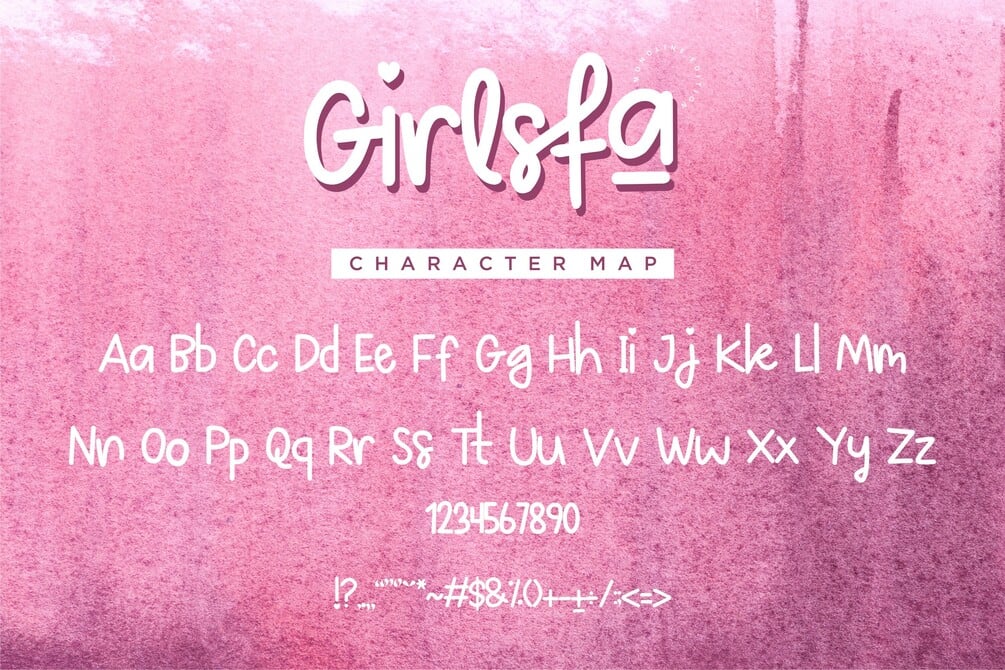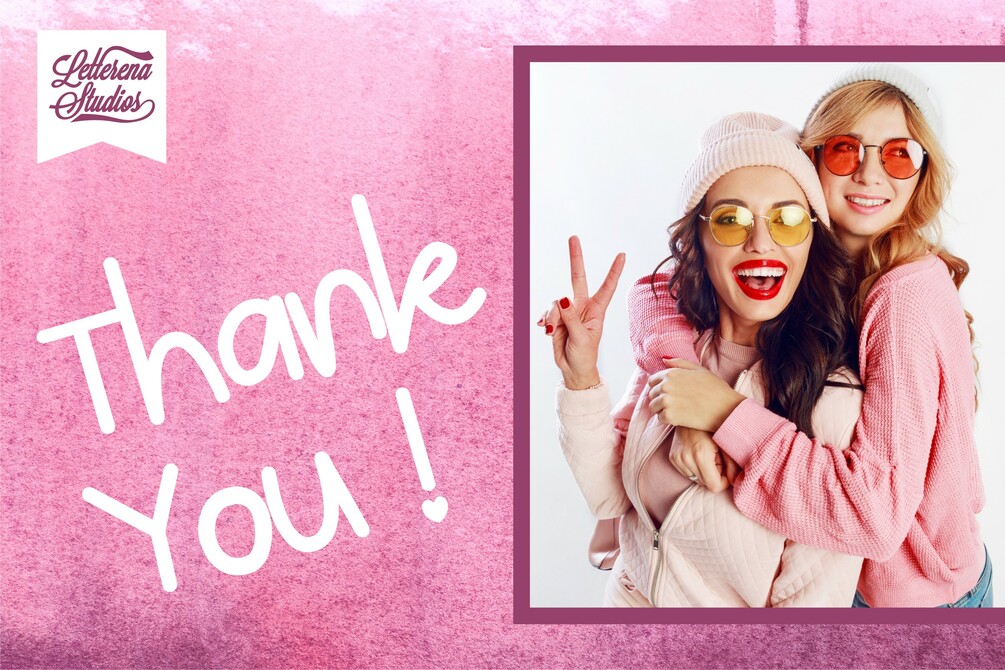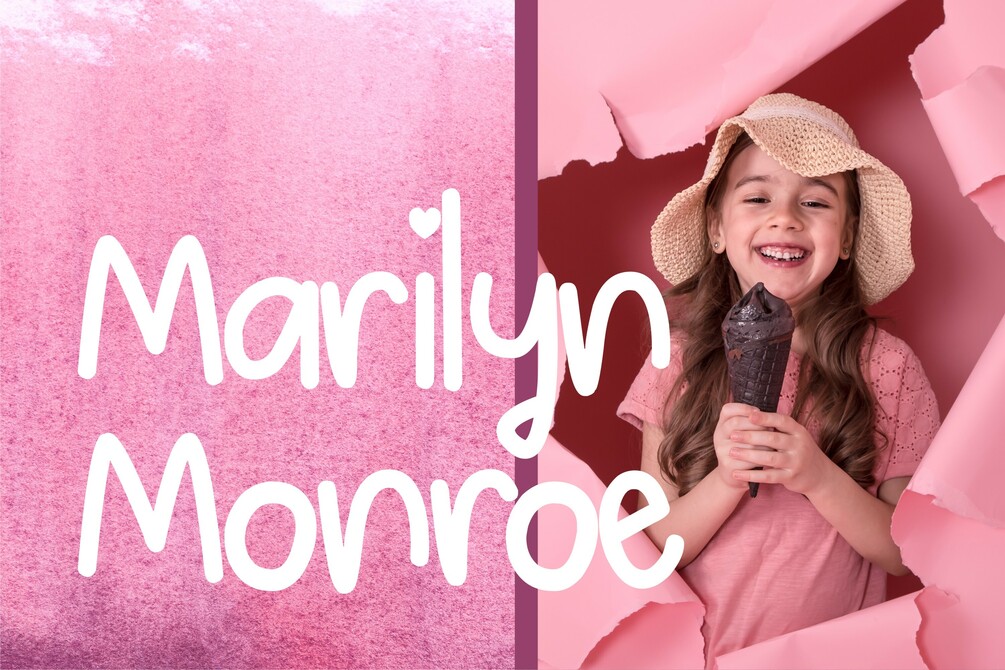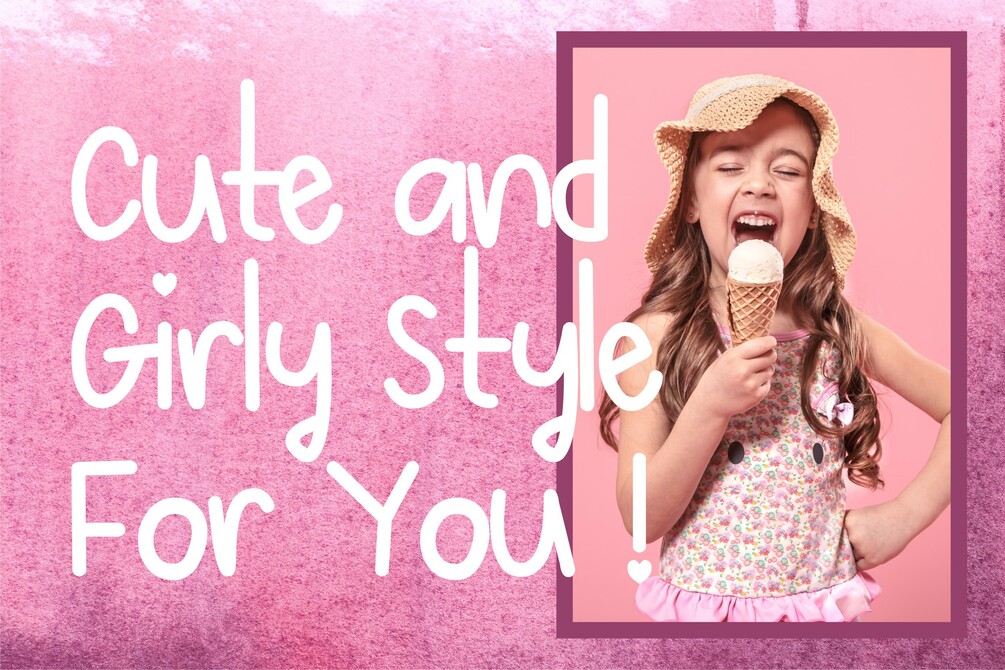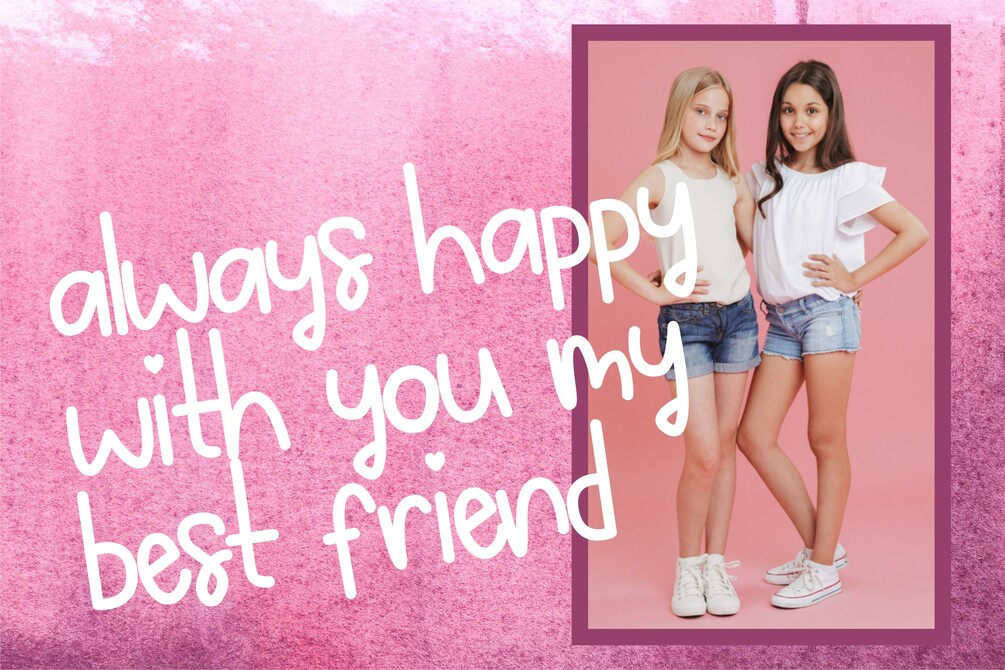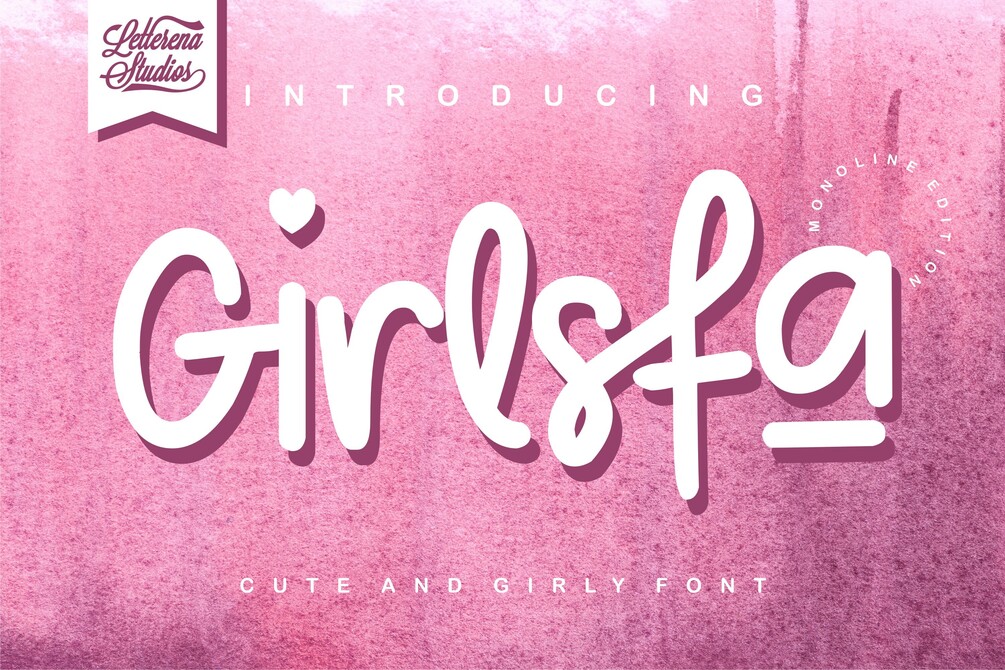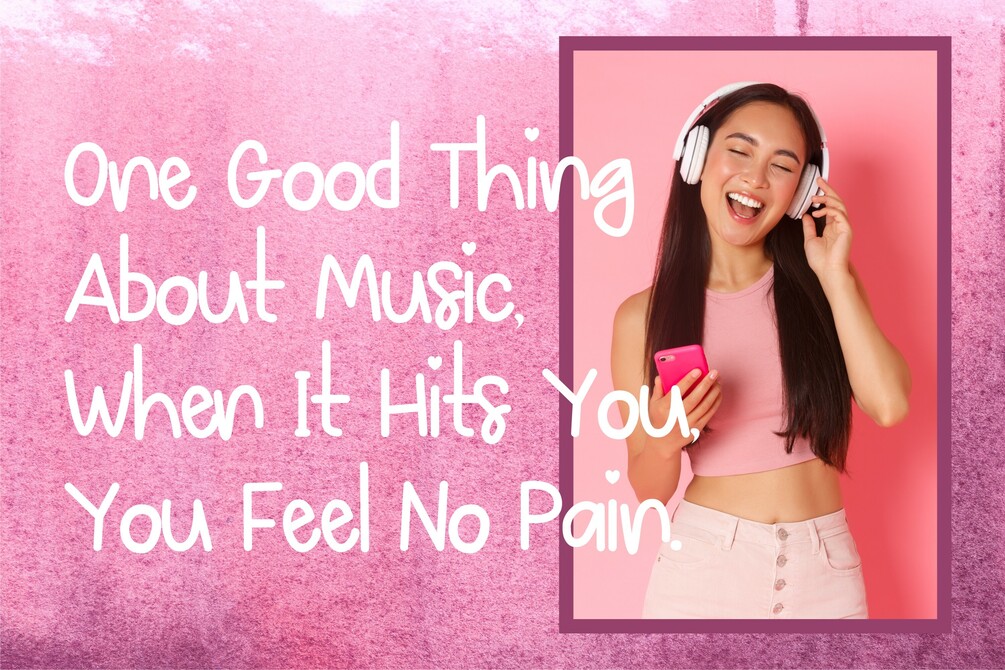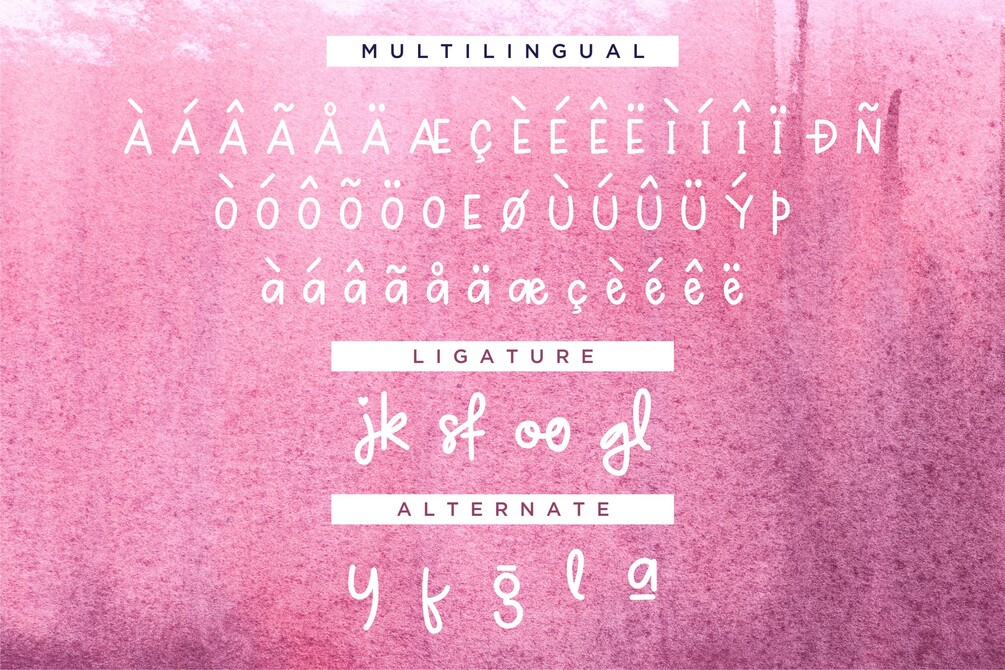
Girlsfa - Cute and Girly Monoline Font
Girlsfa - Cute and Girly Font, from Letterena, is a cute signature calligraphy font, suitable for any projects such as: logos, branding projects, homeware designs, product packaging, mugs, quotes, posters, shopping bags, t-shirts, book covers, name card, invitation cards, greeting cards, label, photography, watermark, special events, and all your other lovely projects that need a beautiful calligraphy taste.